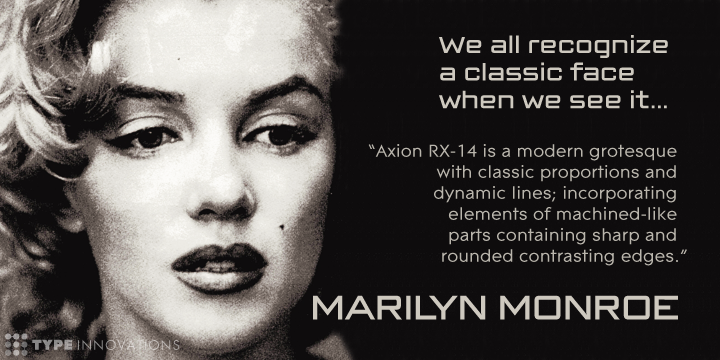
Where to Use Axion RX-14 Font?
This ultra-modern font dominates:
• Sci-fi movie titles & game interfaces
• Cyberpunk branding & neon signage
• Tech startup logos & AI presentations
• E-sports team branding
• Futuristic product packaging
• Cutting-edge editorial designs
Why Axion RX-14 Will Revolutionize Your Work
This isn't just another tech font - Axion RX-14 delivers:
→ Laser-precise angular geometry
→ Dynamic negative space in letterforms
→ Built-in digital distortion effects
→ Multiple width variants in one font
→ Perfect readability at any display size
Axion RX-14 Font System Includes
7 weights from Thin to Ultra
Oblique (italic) versions
Alternate tech-style glyphs
Special "circuit board" ornament set
✓ 800+ meticulously crafted glyphs
✓ Full OpenType feature support
✓ Pre-configured tracking for headlines
✓ Flawless performance in 3D renders